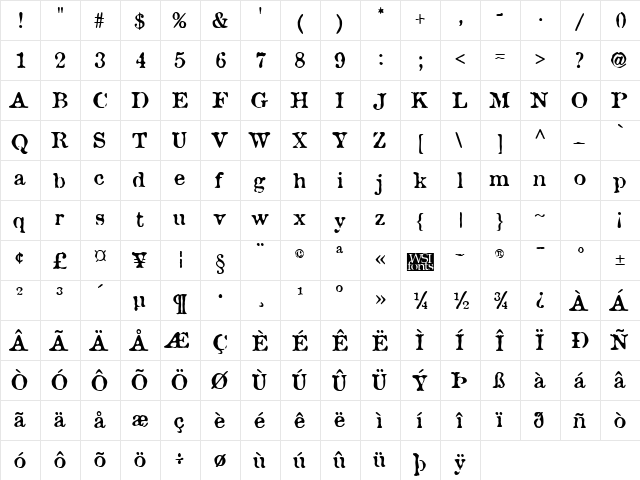
Brunine Regular
Design Context for Brunine Typeface
Brunine takes a measured approach to typography — its balanced proportions and neutral character make it a reliable workhorse for both digital and print work.